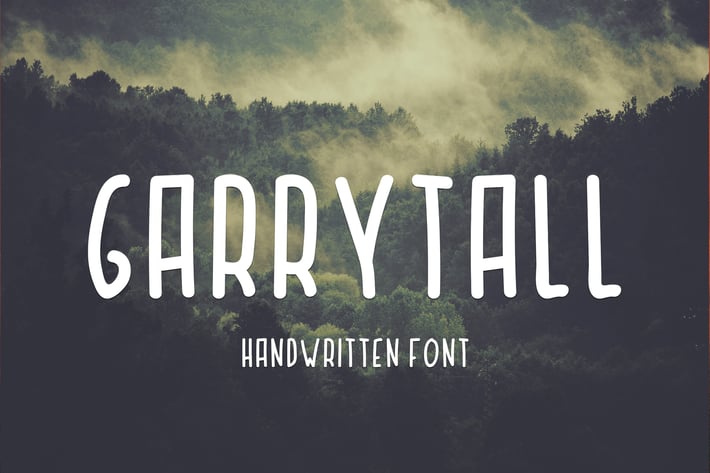
Garry Tall Font
Garry Tall
Garry Tall is handwritten sans-serif tall font (all caps) perfect for quotes, blog header, poster, branding, logo, etc.
ABCDEFGHIJKLMNOPQRSTUVWXYZ
ÀÁÂÃÄÅÇÈÉÊËÌÍÎÏÑÒÓÔÕÖØÙÚÛÜÝß
ĄČĘĖĮŠŲŪŽ
.,:;!?’"‘’“”@_&#%+*-×÷=~/|\(){}[]$¢€£¥